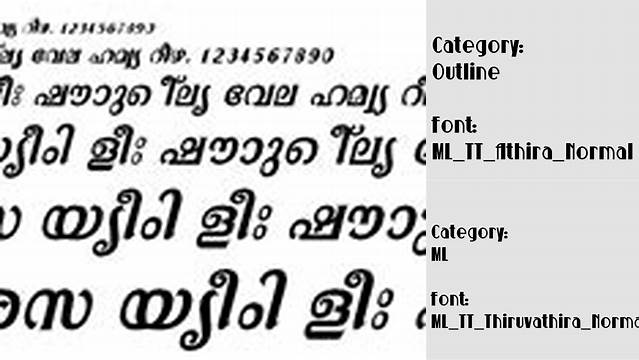
Let's dive into the world of fonts, guys! Specifically, we're talking about the ML TT Athira font, a super cool typeface that's been making waves. If you're looking to download it for free, you've come to the right place. This guide will walk you through everything you need to know about this font, where to find it, and how to use it. So, buckle up and let's get started!
What is ML TT Athira Font?
The ML TT Athira font is a unique typeface known for its elegant and readable design. It's a popular choice for various applications, from branding and marketing materials to web design and personal projects. The font's clean lines and balanced letterforms make it versatile and visually appealing. If you're after a font that blends professionalism with a touch of flair, Athira might just be your perfect match. Its popularity stems from its ability to convey sophistication while maintaining readability, making it a go-to option for designers and creatives alike. The font's character set includes a wide range of glyphs, supporting multiple languages and ensuring compatibility across different platforms and software.
Why Choose ML TT Athira Font?
Choosing the right font is crucial, and the ML TT Athira font offers several compelling reasons to make it your go-to choice. First off, its readability is top-notch. Whether you're using it for body text or headlines, Athira ensures that your message is clear and easily digestible. The font's design strikes a balance between modern and classic, making it suitable for a wide range of projects. Its versatility is another significant advantage. Athira works well in both print and digital formats, so you can use it across all your branding and marketing efforts. Plus, its aesthetic appeal adds a touch of elegance and sophistication to any design, helping your work stand out from the crowd. In a world where visual communication is paramount, Athira provides a distinct edge, ensuring your content looks polished and professional. Its well-crafted letterforms and balanced proportions contribute to a seamless reading experience, making it an excellent choice for both short and long-form text.